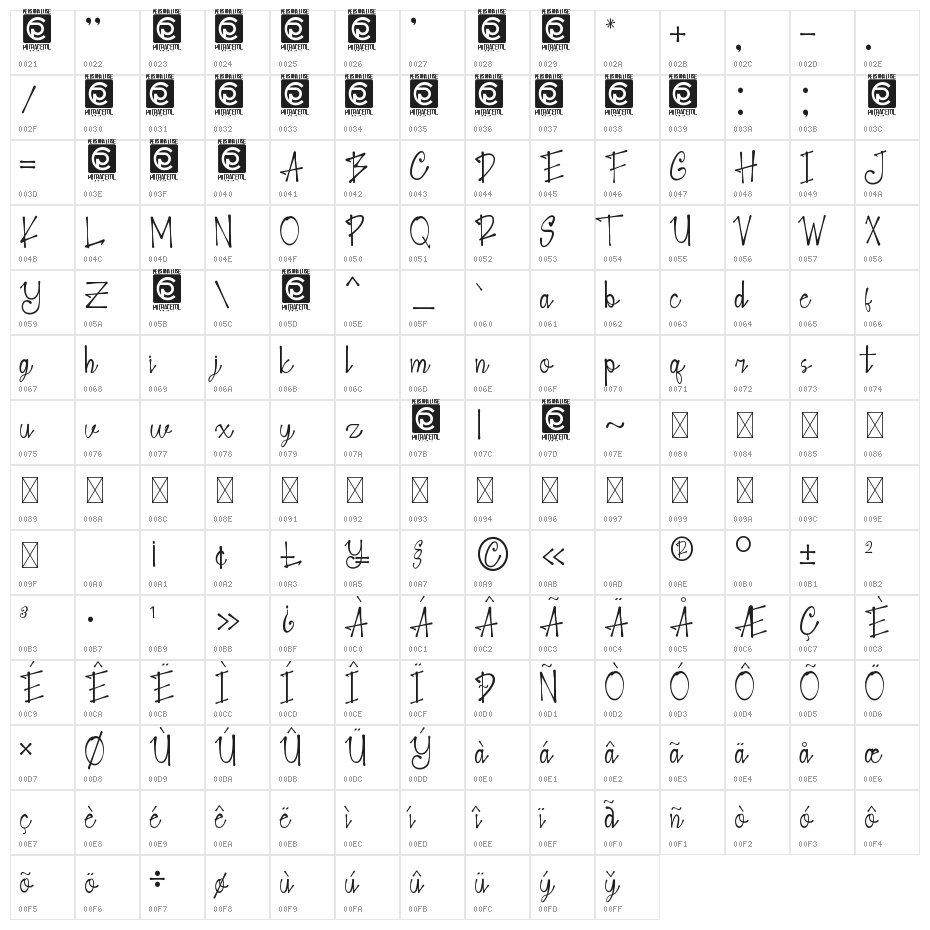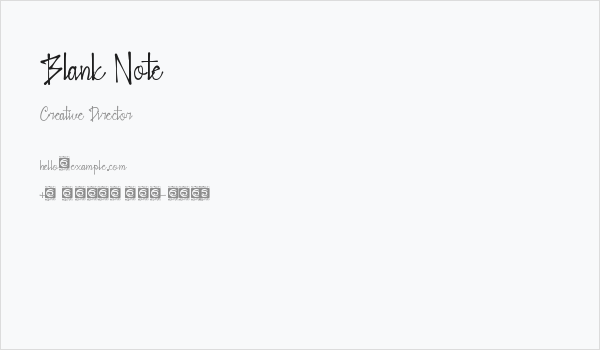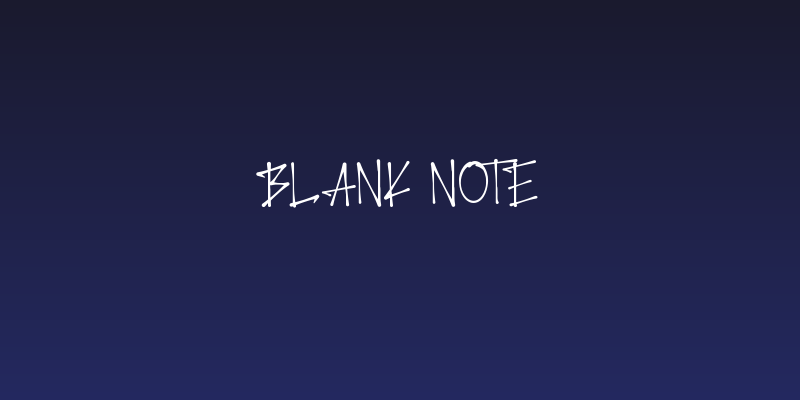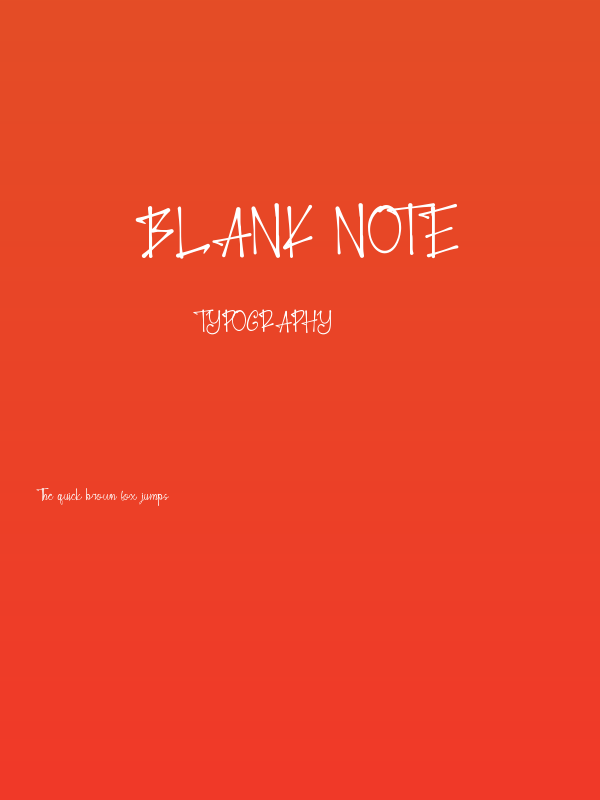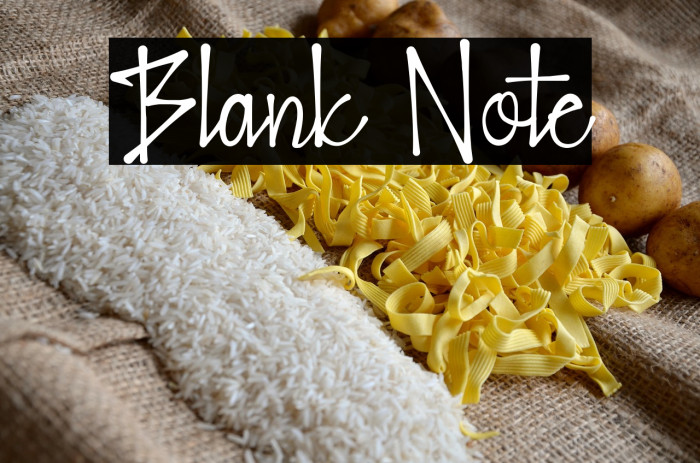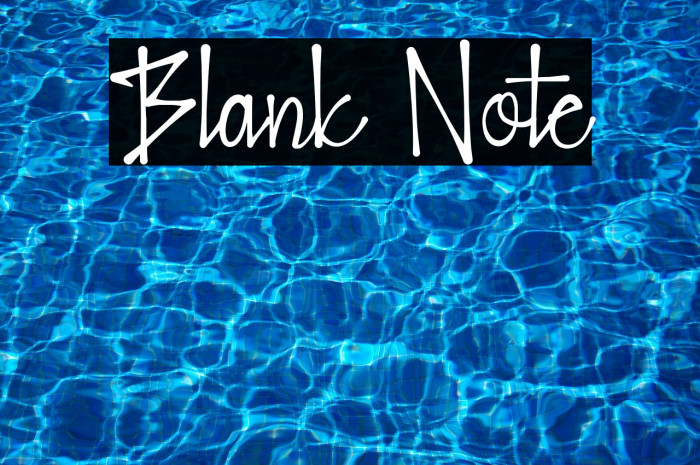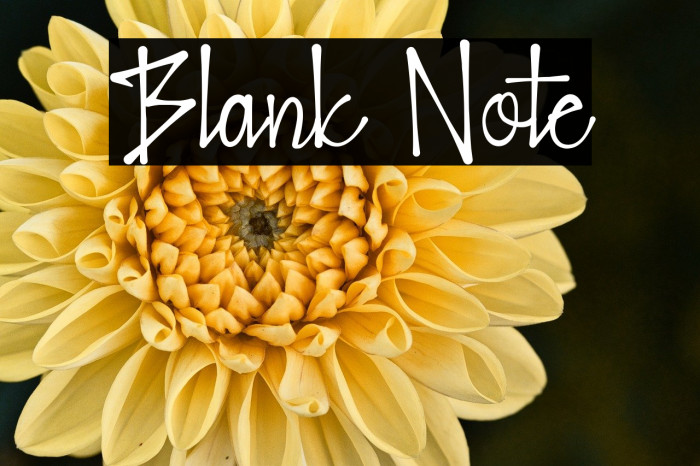
Blank Note Font
Blank Note Description
This font features a playful and casual handwritten style, characterized by its irregular strokes and whimsical appearance. The uppercase letters are tall and slightly narrow, with a consistent stroke width that gives them a clean and modern look. The lowercase letters maintain a similar style, with a slight slant that adds a touch of dynamism. The numbers and special characters are designed to match the overall aesthetic, making them suitable for informal and creative projects. The font's unique personality makes it ideal for designs that require a personal touch.